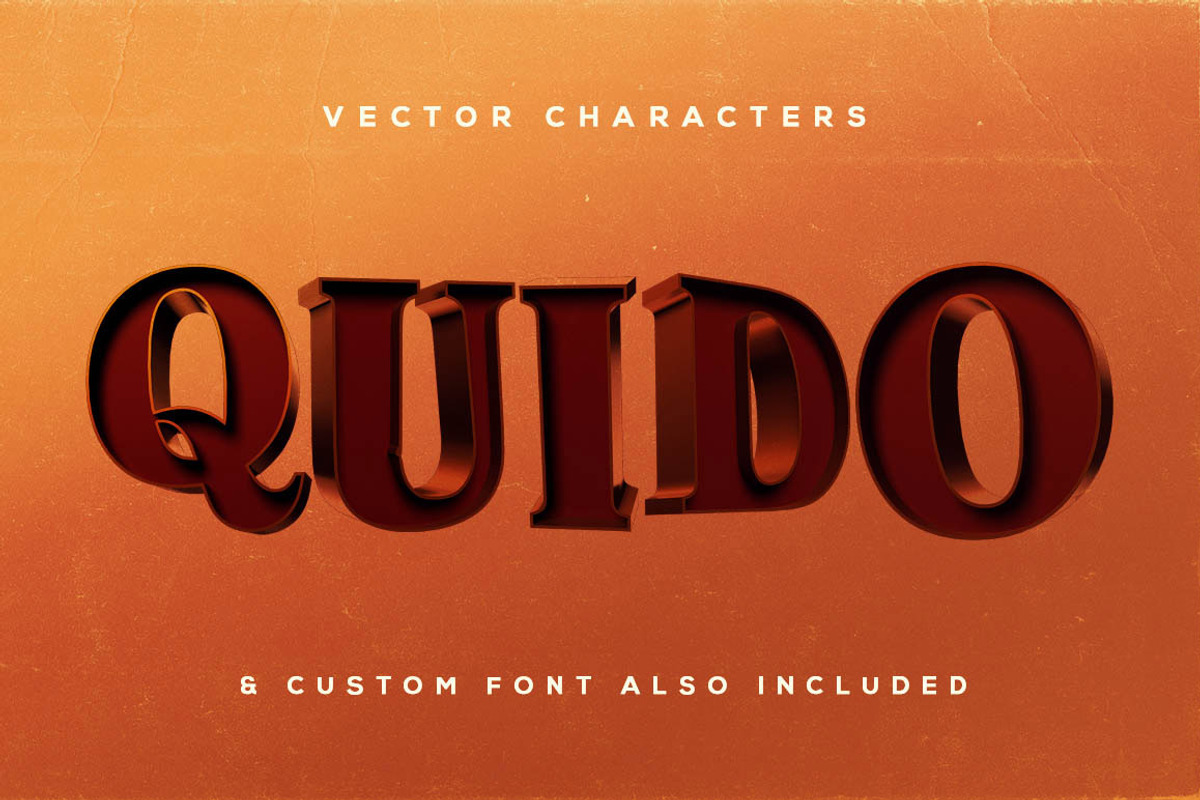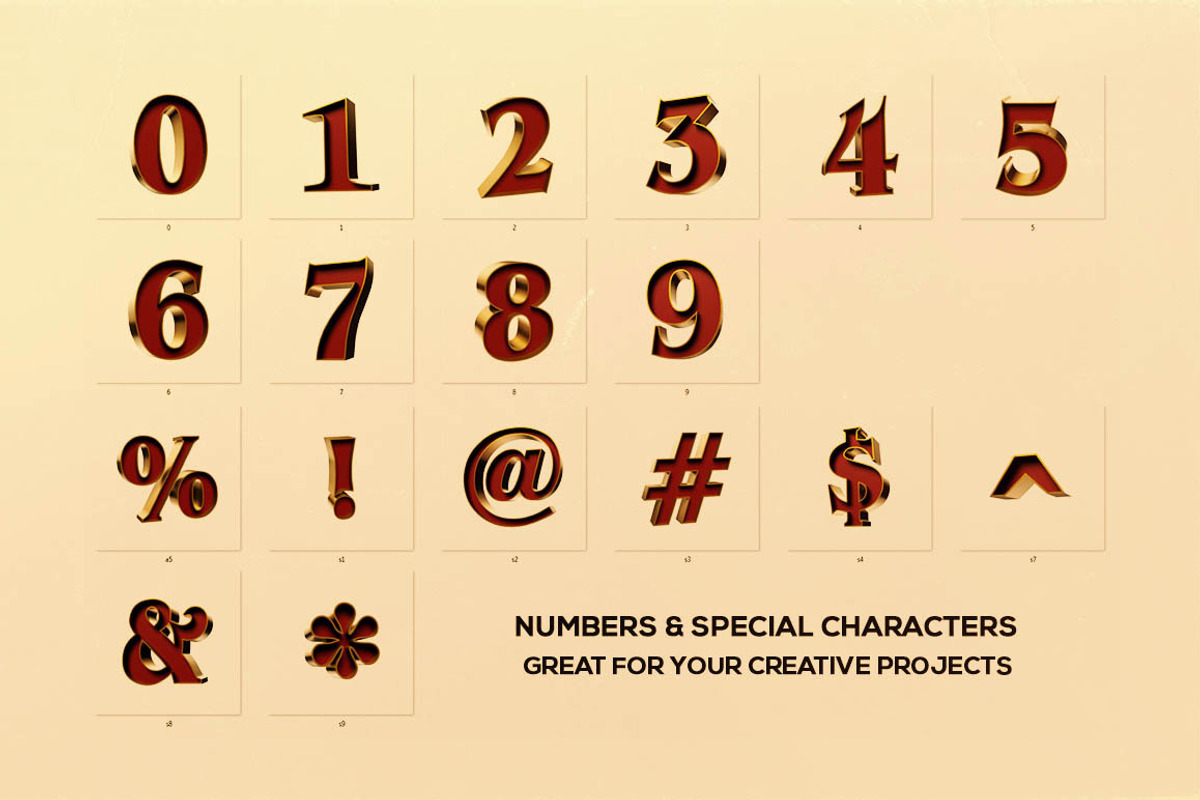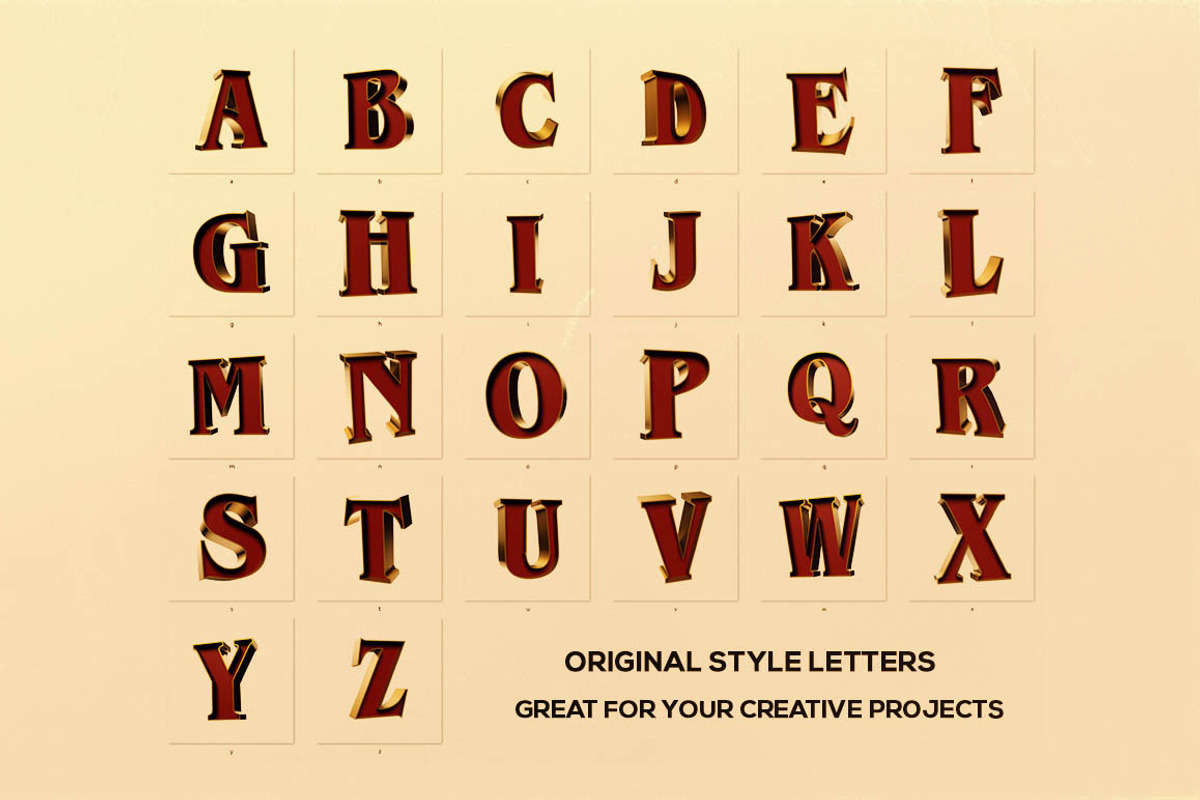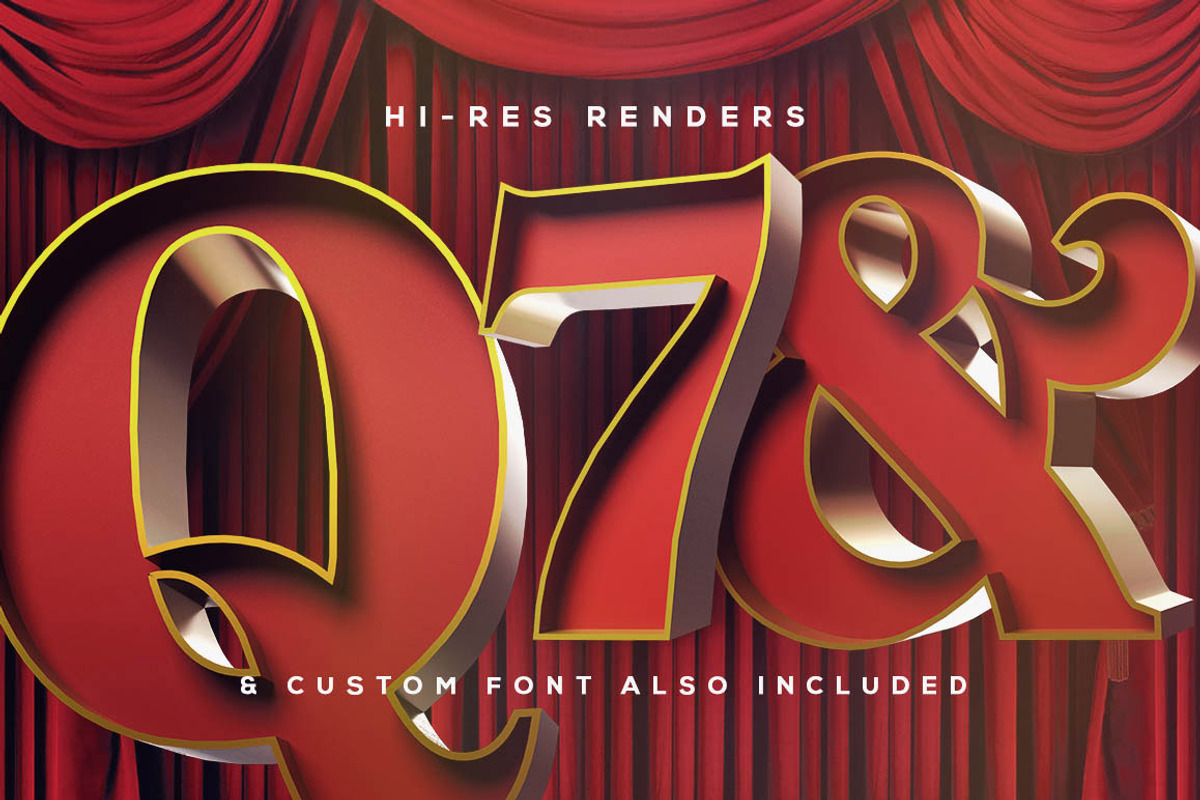
CircusCircus - 3D Lettering & Font
CircusCircus - 3D Lettering & Font by MIIM is a font selected for branding, posters, packaging, typography.
Why CircusCircus - 3D Lettering & Font is worth a look
CircusCircus - 3D Lettering & Font by MIIM fits naturally into Branding, posters, packaging, typography.